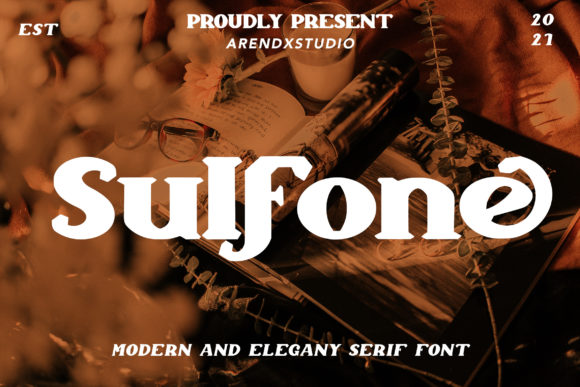
**Prepare to be Captivated: Introducing Sulfone, the Astonishing Serif Font That Will Revolutionize Your Visual Presence**
In the realm of digital expression, where every pixel holds the power to inspire, allure, and persuade, the choice of font holds immense significance. Introducing Sulfone, an extraordinary serif font family poised to elevate your designs to new heights.
Crafted by the masterful hands at Arendxstudio, Sulfone embodies the very essence of distinction, boasting bold and thick letters that exude an air of unparalleled confidence. Its unique serif flourishes add a touch of timeless elegance, ensuring that your messages linger in the minds of your audience long after they've turned the page.
Whether you seek to create captivating posters that demand attention, design flyers that ignite excitement, or produce printed materials that leave an indelible impression, Sulfone stands ready to ignite your creative vision. Its versatility knows no bounds, lending itself effortlessly to a myriad of design styles and applications.
Unleash the boundless potential of Sulfone, and witness firsthand how this remarkable font transforms your ordinary creations into masterpieces that captivate the senses and leave an enduring legacy.
**Key Features:**
* Bold and thick lettering for maximum impact
* Unique serif flourishes for timeless elegance
* Ideal for posters, flyers, and print designs
* Effortlessly versatile, adaptable to various design styles